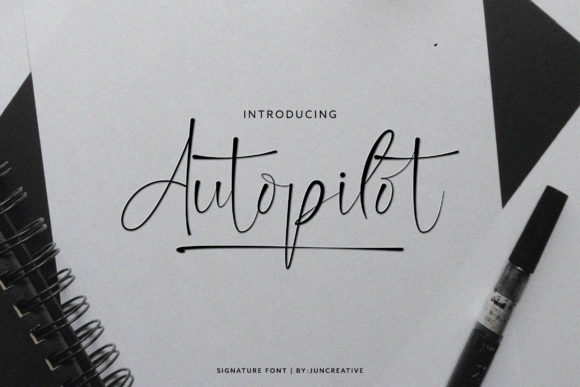
The Autopilot Font: A Designer’s Dream Come True
I’ll never forget the time I was working on a project for a high-end client, and I was struggling to find the perfect font. The client wanted something elegant, yet modern; something that would make their brand stand out from the crowd. I spent hours scouring the internet, trying out different fonts, but nothing seemed quite right. That was until I stumbled upon the Autopilot font. ✨
A Personal Review: What I Love About Autopilot
As soon as I saw Autopilot, I knew I had found the one. This elegant and flowing handwritten font has been a game-changer for my designs. Here’s what I love about it:
- ✅ It maintains its classy calligraphic influences while feeling contemporary and fresh.
- ✅ The font is incredibly versatile, making it perfect for a wide range of projects, from branding and packaging to wedding invitations and more.
While Autopilot is an amazing font, there are a few small quirks to be aware of:
- ⚠️ Some users may find the font a bit tricky to pair with other fonts, so it’s best to stick with a simple, neutral font for body text.
- 🤔 The font can be a bit overused, so try to use it sparingly to make the most impact.
The Story Behind Autopilot
Autopilot was designed by a team of typographers who wanted to create a font that would evoke the feeling of elegant, handwritten script. The designers drew inspiration from classic calligraphy and modern typography, combining the two to create a unique and versatile font. The result is a font that’s both timeless and trendy, perfect for designers who want to add a touch of sophistication to their projects.
| Author | Juncreative |